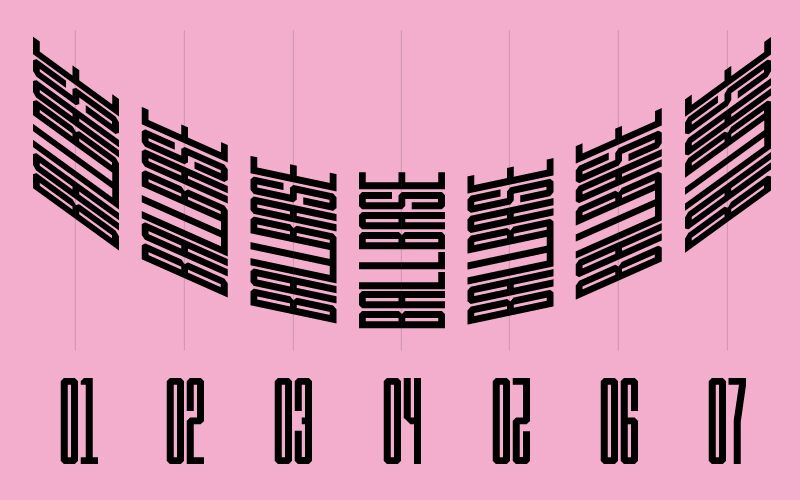
Ballbase. Typeface inspired by Baseball. Condenced typeface enabling more letter ons one line. Designed for YesYesNo.me.
Ballbase
Steppot: Ballbase: 2016
Ballbase